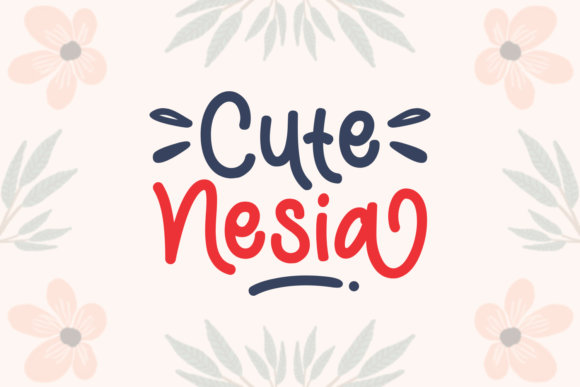
Prepare yourself to be swept off your feet by the enchanting allure of Cute Nesia Font, a captivating script font that exudes personality and charm. Its whimsical strokes, reminiscent of a playful dance, will infuse your designs with an irresistible touch of delight.
With Cute Nesia Font, you have the power to transform ordinary words into extraordinary expressions. Picture your designs adorned with this enchanting script, each letter gracefully flowing into the next, creating a visual symphony that captures the eye and captivates the heart. Let your imagination soar as you witness your designs transformed into captivating masterpieces.
Embrace the boundless versatility of Cute Nesia Font. Its playful nature lends itself effortlessly to a myriad of design projects, from cheerful invitations and heartwarming greeting cards to eye-catching social media posts and captivating website designs. Unleash your creativity and let Cute Nesia Font elevate your designs to new heights of visual appeal.
Step into a world where designs come alive with personality, where each word carries a story, and every letter dances with grace. Cute Nesia Font is your gateway to crafting designs that resonate, designs that speak to the soul and leave an indelible mark on the minds of your audience.